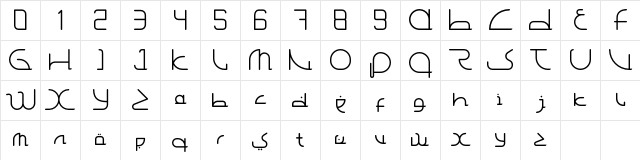
Arab Empang Reguler Free Font
Arab Empang Reguler
Style: Reguler
Designer: ghielz
Design Context for Arab Empang
Arab Empang is a composed and adaptable typeface that performs quietly and consistently across a wide range of design contexts.
Pro Tip: Use Arab Empang in both headline and body roles to test its range before committing to a single application.